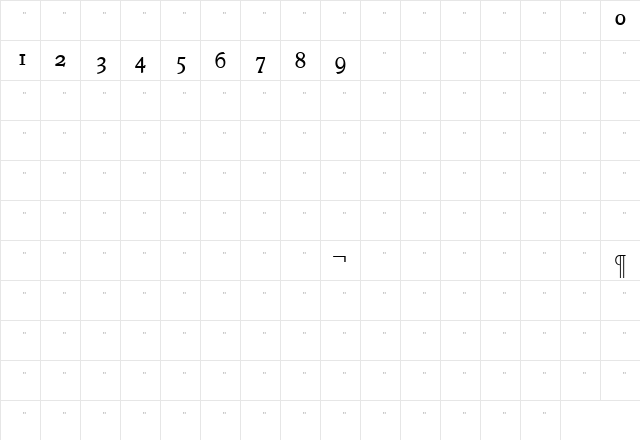
VeroneseBookOldStyleFigures Medium
Design Context for VeroneseBookOldStyleFigures Typeface
VeroneseBookOldStyleFigures carries the refined structure of traditional serif typography, with bracketed terminals and considered proportions that communicate credibility and craft.